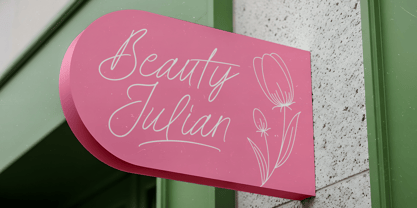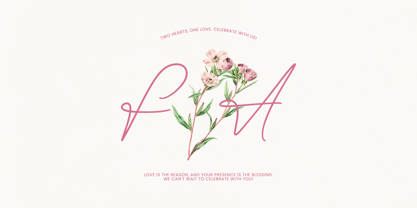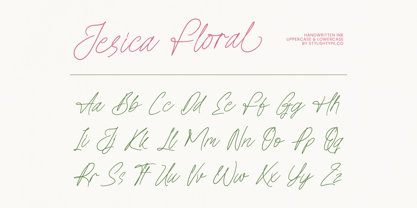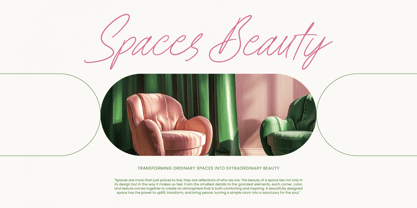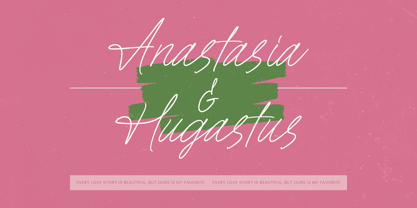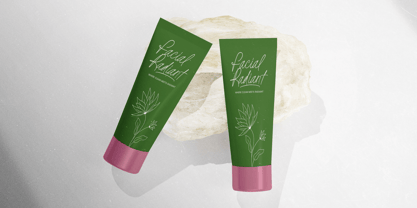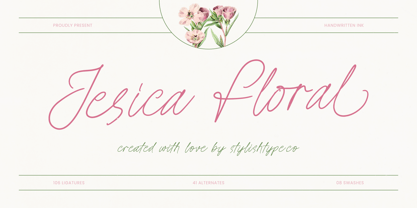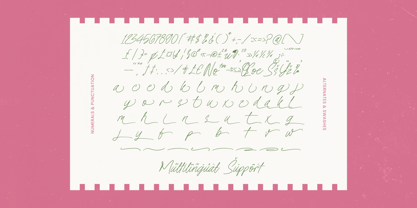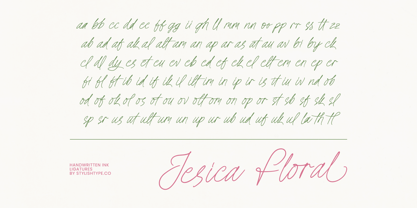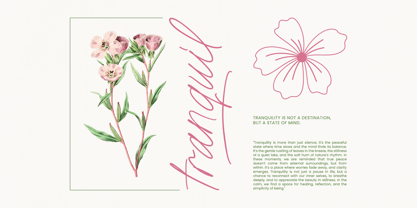
Jesica Floral
by Stylishtype Studio
The Jesica Floral Font Family was designed by Heru Utama Putra and published by Stylishtype Studio. Jesica Floral contains 2 styles and family package options. More about this family
Jesica Floral is a gentle handwritten ink script designed for soft, feminine, and botanical-inspired branding. Its smooth strokes and airy letterforms create an elegant handwritten feel that works beautifully across wedding stationery, floral boutiques, skincare packaging, lifestyle quotes, and artisan branding. Enhanced with 106 ligatures, 41 alternates, and 8 expressive swashes, this font gives designers full creative flexibility to achieve an authentic, romantic handwritten look. Perfect for those seeking a delicate script with a natural floral soul.